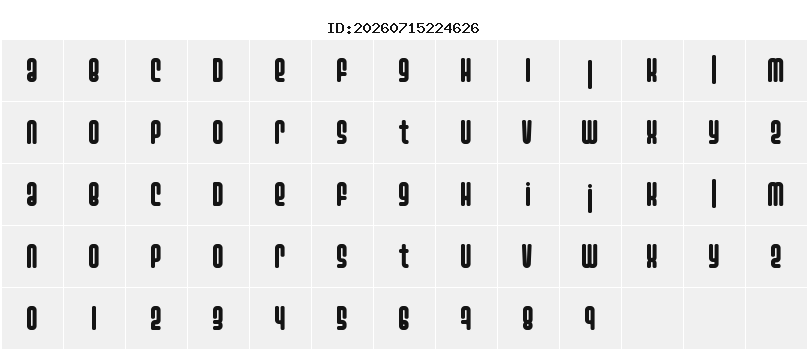
• Font Name: Ashbury
• Full Font Name: Ashbury
About Ashbury.ttf
Ashbury.ttf is a modern, elegant sans-serif font designed for ultimate readability and visual harmony. Perfect for branding, headlines, web design, and print materials.